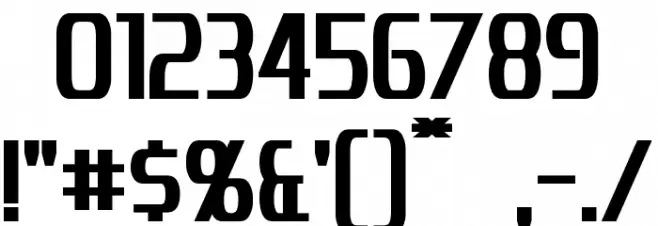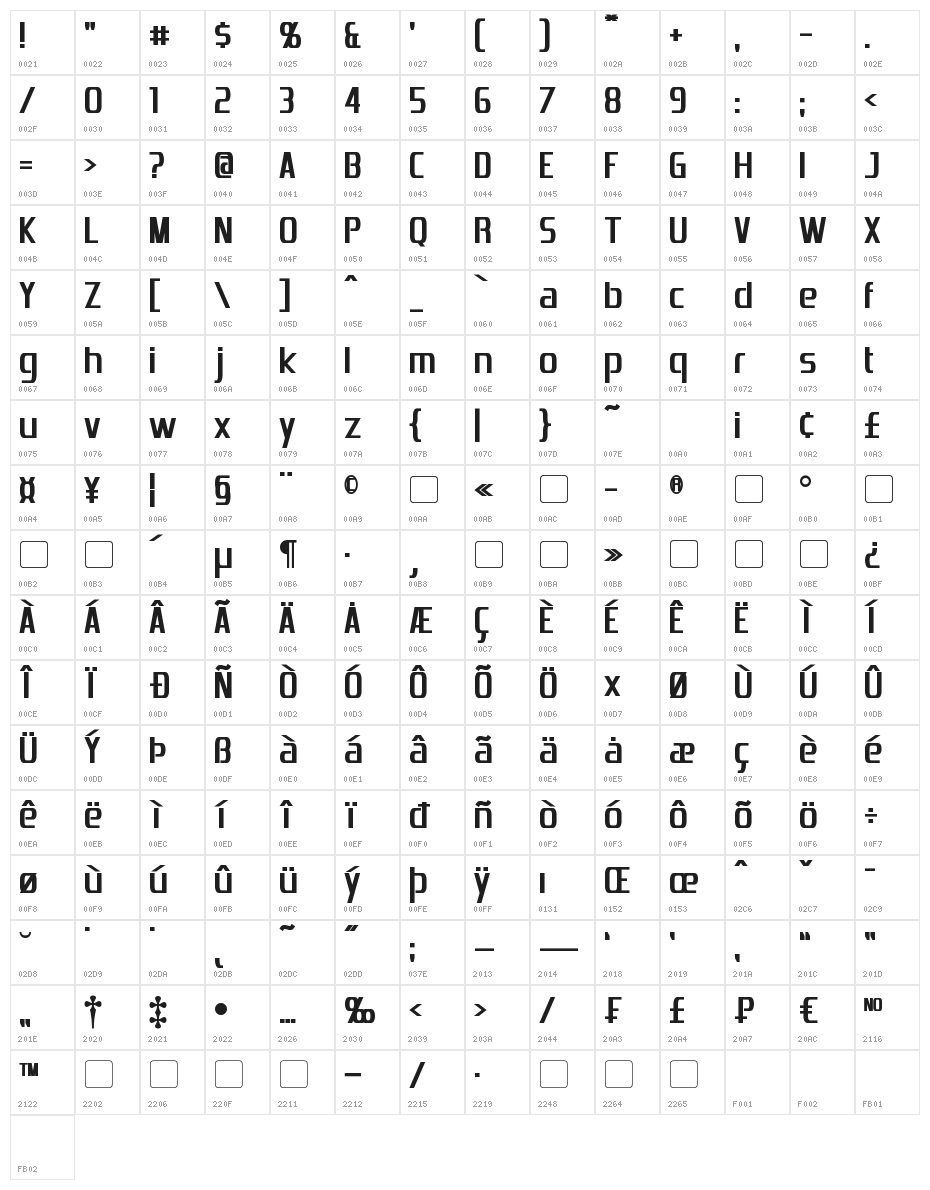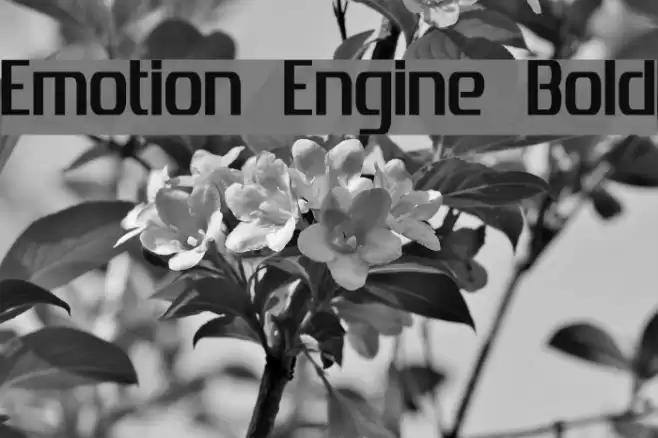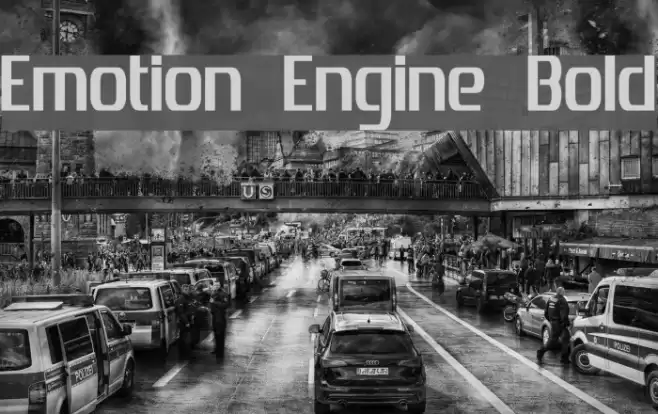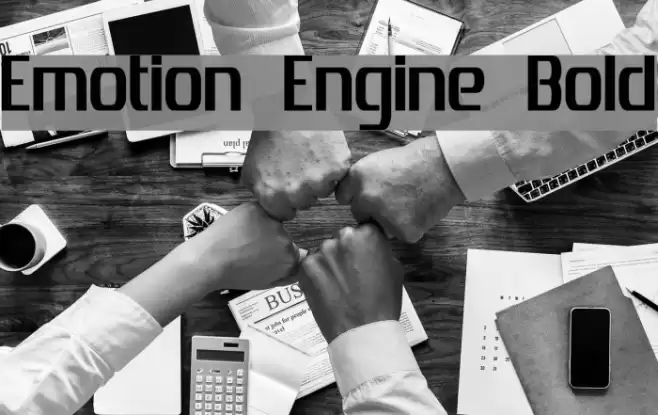
Emotion Engine Bold Font
Emotion Engine Bold Description
This font exhibits a bold and modern aesthetic with a strong presence. The characters are designed with a geometric influence, featuring clean lines and a uniform stroke width that conveys a sense of stability and confidence. The uppercase letters are slightly condensed, enhancing the compact and efficient look, while the lowercase letters maintain a consistent style that complements the uppercase. The numerals are clear and legible, making them suitable for various applications. Special characters are well-integrated, ensuring versatility in design projects. Overall, this font is ideal for making a bold statement in any visual communication.
Proposed ProjectsIdeal for branding, headlines, posters, and digital media where a strong, modern impact is desired.